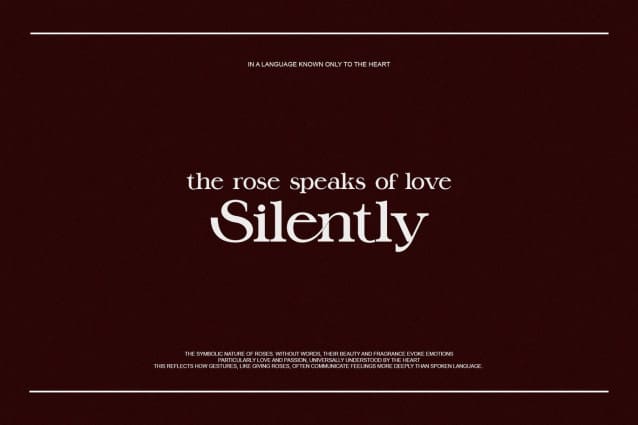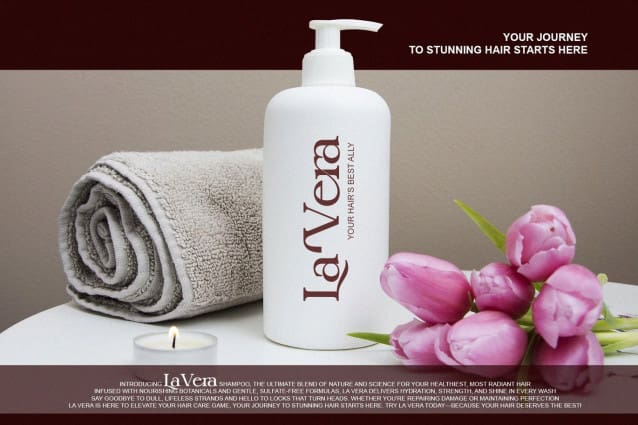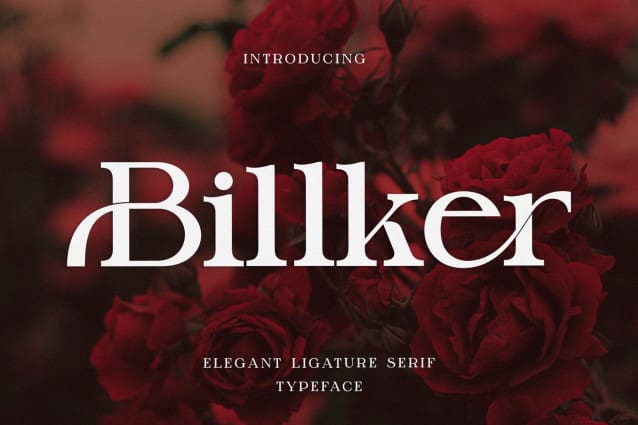
Billker Font
Billker Font is a sleek modern serif font that evokes the beauty of fresh flowers and timeless elegance. With its bold yet refined ligatures, Billker stands out as a sophisticated and feminine font. Perfect for high-end designs, whether for florals, fashion, or high-end brands, Billker combines the charm of classic serif styles with a modern twist. Each letter feels intentional, with a soft, graceful presence that enhances any project it touches.
Bring a touch of sophistication and effortless grace to your work with Billker Font. Let this font infuse your designs with elegance and watch them blossom with style and character.